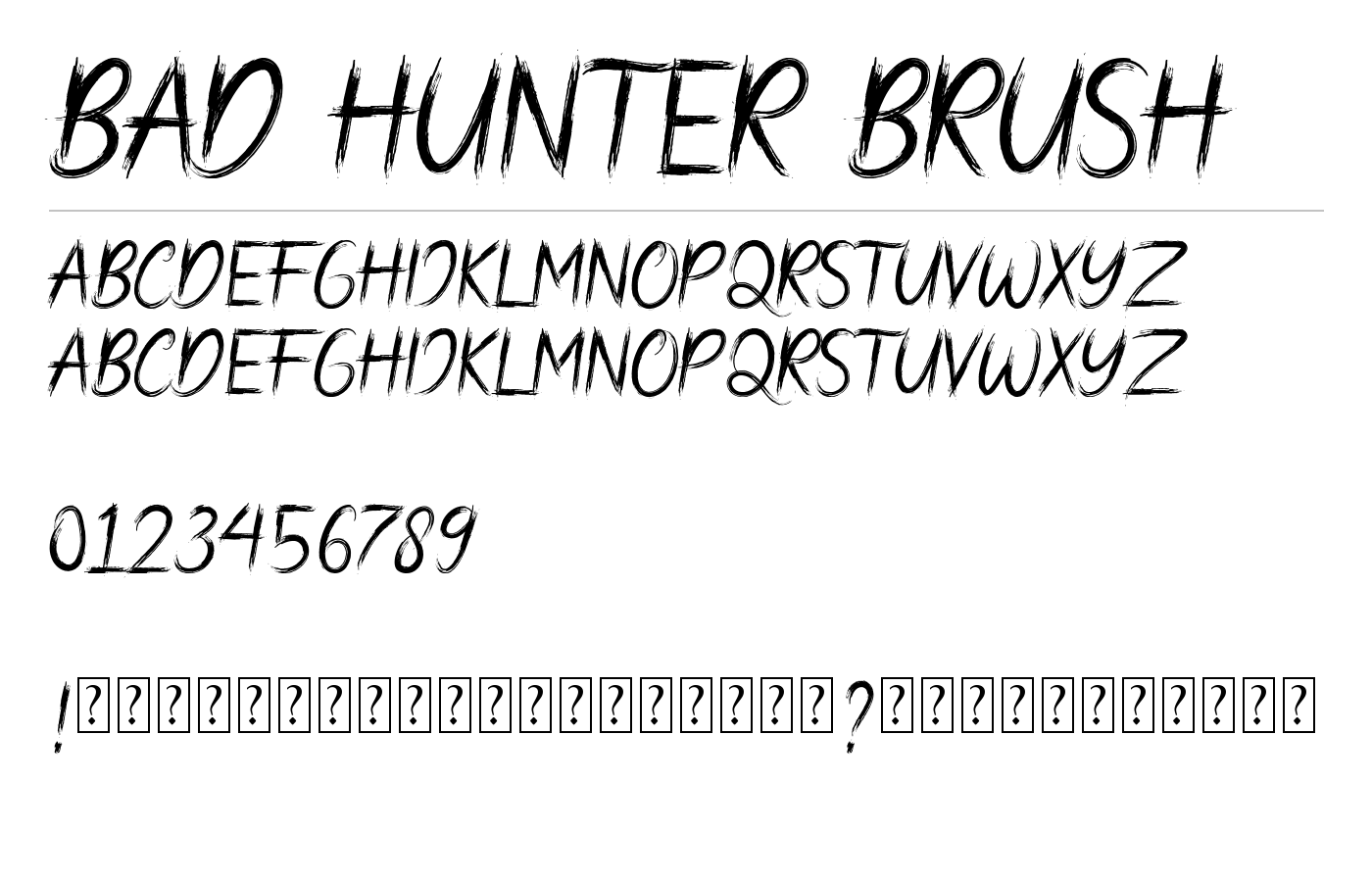
Bad Hunter Brush is a bold, hand-drawn brush font with a raw, textured look that adds an edgy, dynamic feel to any design. Its tall, narrow letterforms with uneven strokes and rough edges make it perfect for expressive headlines, posters, and branding that seek a rebellious or artistic vibe. This font works especially well where a handcrafted, energetic style is desired, delivering a sense of movement and personality.
Bad Hunter Brush Font
About Bad Hunter Brush Font